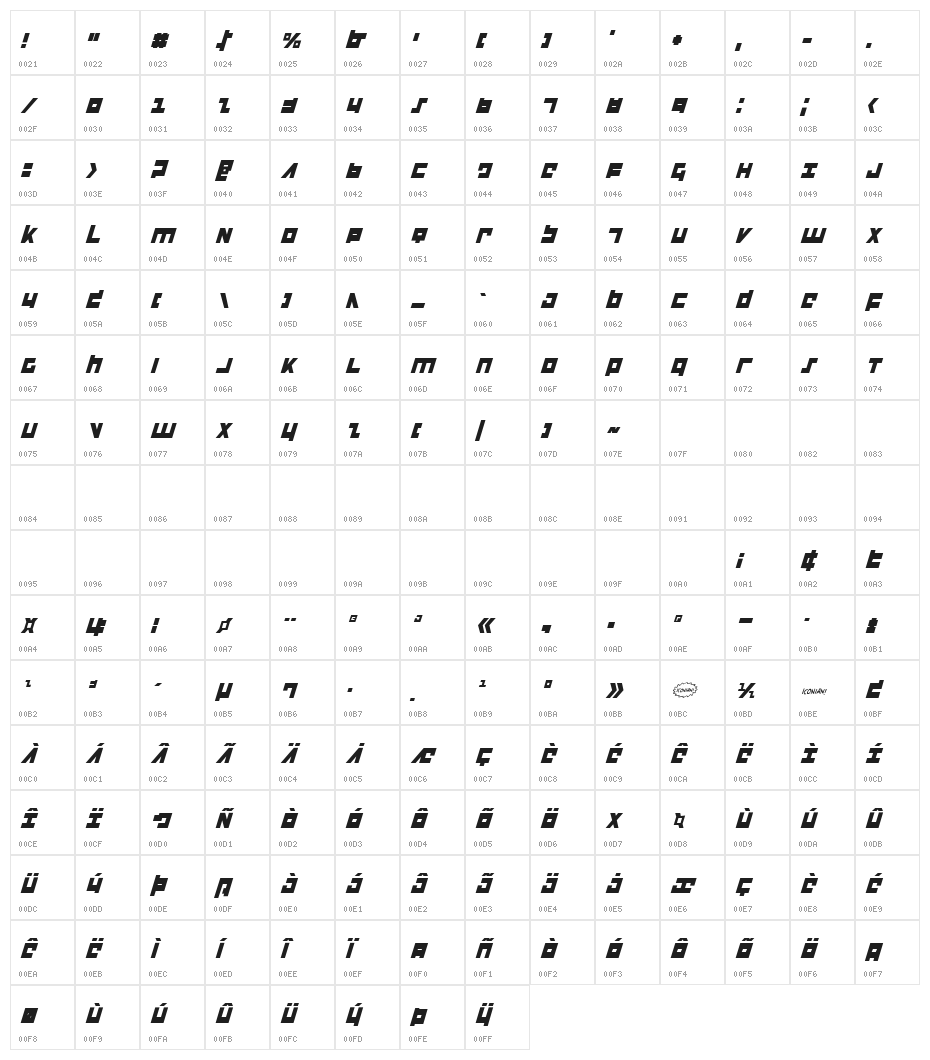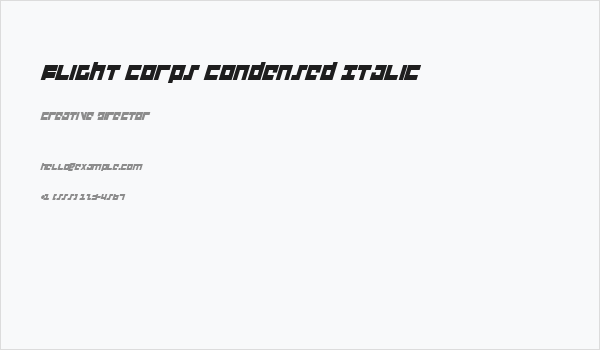
Flight Corps Condensed Italic Font
Flight Corps Condensed Italic Description
This font features a bold and dynamic design with a condensed and italicized style. The characters are angular and geometric, giving a futuristic and tech-inspired appearance. The uppercase and lowercase letters maintain a consistent slant, enhancing the italic effect. The numbers and special characters follow the same design principles, ensuring uniformity across all glyphs. The overall look is sleek and modern, suitable for projects that require a strong visual impact.
| Proposed Projects | Ideal for branding, tech-related designs, sports team logos, and dynamic posters. |